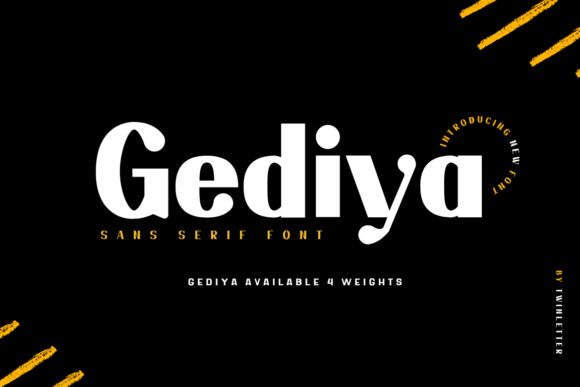
**Introducing Gediya Font: The Culinary Canvas for Enticing Food Packaging**
In a world where food packaging often determines a consumer's first impression, Gediya Font emerges as the secret ingredient for a tantalizing visual feast. This minimalist sans serif font, crafted with meticulous precision by twinletter, transforms your designs into masterpieces that ignite taste buds and captivate hearts.
Gediya's clean and elegant lines evoke a sense of sophistication, mirroring the meticulous artistry of culinary creations. Its minimalist aesthetic provides a blank canvas for your creativity, allowing you to weave stories through typography. Picture a menu that dances with Gediya's delicate strokes, inviting diners on a gastronomic journey. Or envision a product label that whispers tales of artisanal flavors, beckoning consumers to indulge in a symphony of tastes.
With Gediya as your font, your food packaging transcends its functional purpose, becoming an extension of your culinary artistry. It's a testament to the transformative power of typography, where letters become culinary ambassadors, enticing customers with their visual charm.
**Gediya Font: A Culinary Odyssey Awaits**
Gediya Font is your gateway to an extraordinary culinary odyssey. Its versatility knows no bounds, seamlessly adapting to diverse packaging designs—from sleek and contemporary to rustic and artisanal. Let your imagination run wild as you craft captivating labels for gourmet chocolates, artisanal teas, handcrafted sauces, or any edible delight you can conjure.
Imagine a coffee packaging adorned with Gediya's elegant curves, evoking the rich aroma of freshly brewed beans. Or visualize a wine label that speaks of vintage elegance, inviting oenophiles to savor the nectar of the gods. The possibilities are endless, limited only by your culinary imagination.
With Gediya Font, your food packaging will tantalize taste buds, stir emotions, and leave an indelible mark on consumers' minds. It's the ultimate fusion of art and appetite, a testament to the power of typography to transform the mundane into the extraordinary.
**Embrace Gediya Font: The Culinary Typographic Masterpiece**
Gediya Font is more than just a font; it's an edible masterpiece waiting to be savored. Its minimalist elegance dances on your packaging, beckoning consumers with its understated charm. Its versatility molds itself to any culinary canvas, transforming ordinary products into delectable works of art.
Don't let your food packaging be a mere container. Unleash the transformative power of Gediya Font and let your designs ignite taste buds, capture hearts, and weave culinary tales that linger long after the last bite. Embrace Gediya Font and embark on an extraordinary journey where typography and gastronomy intertwine, creating an unforgettable symphony of flavors and visual delight.